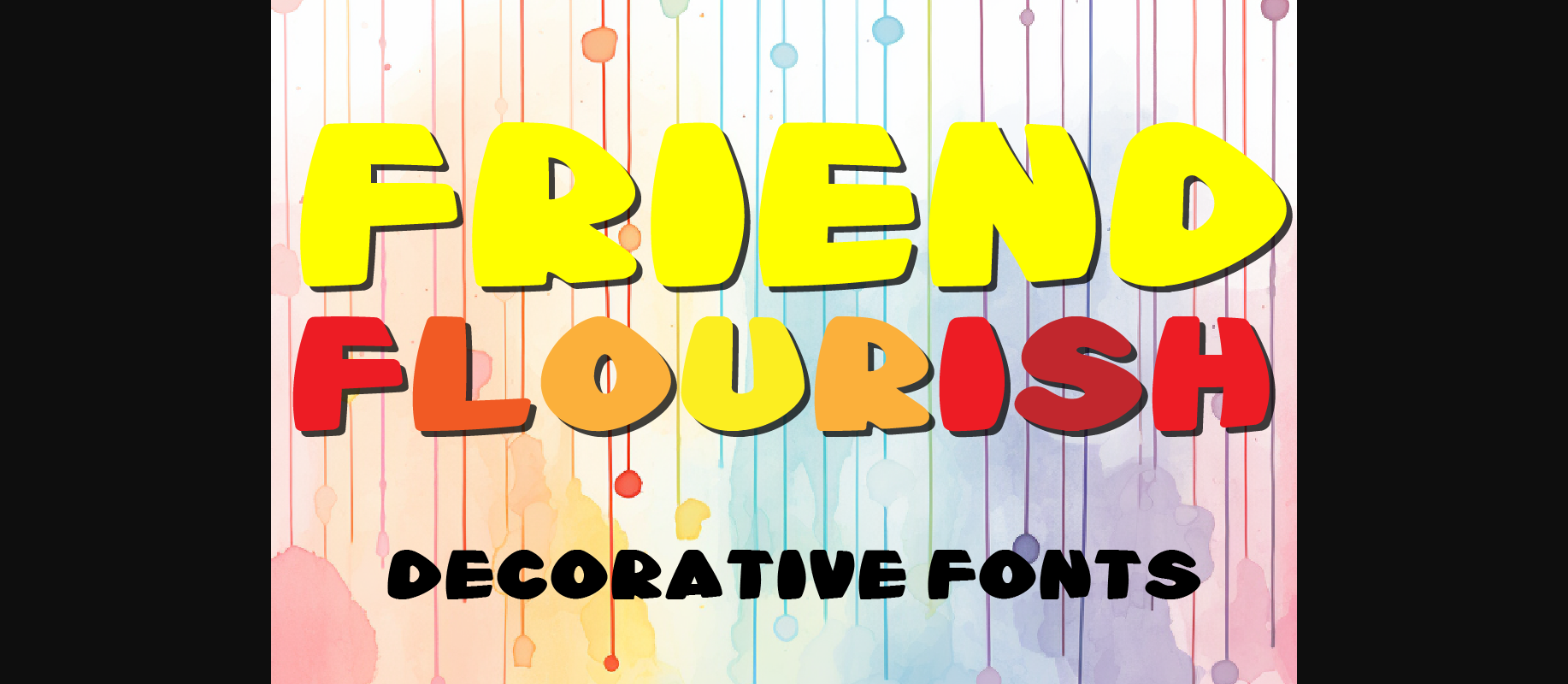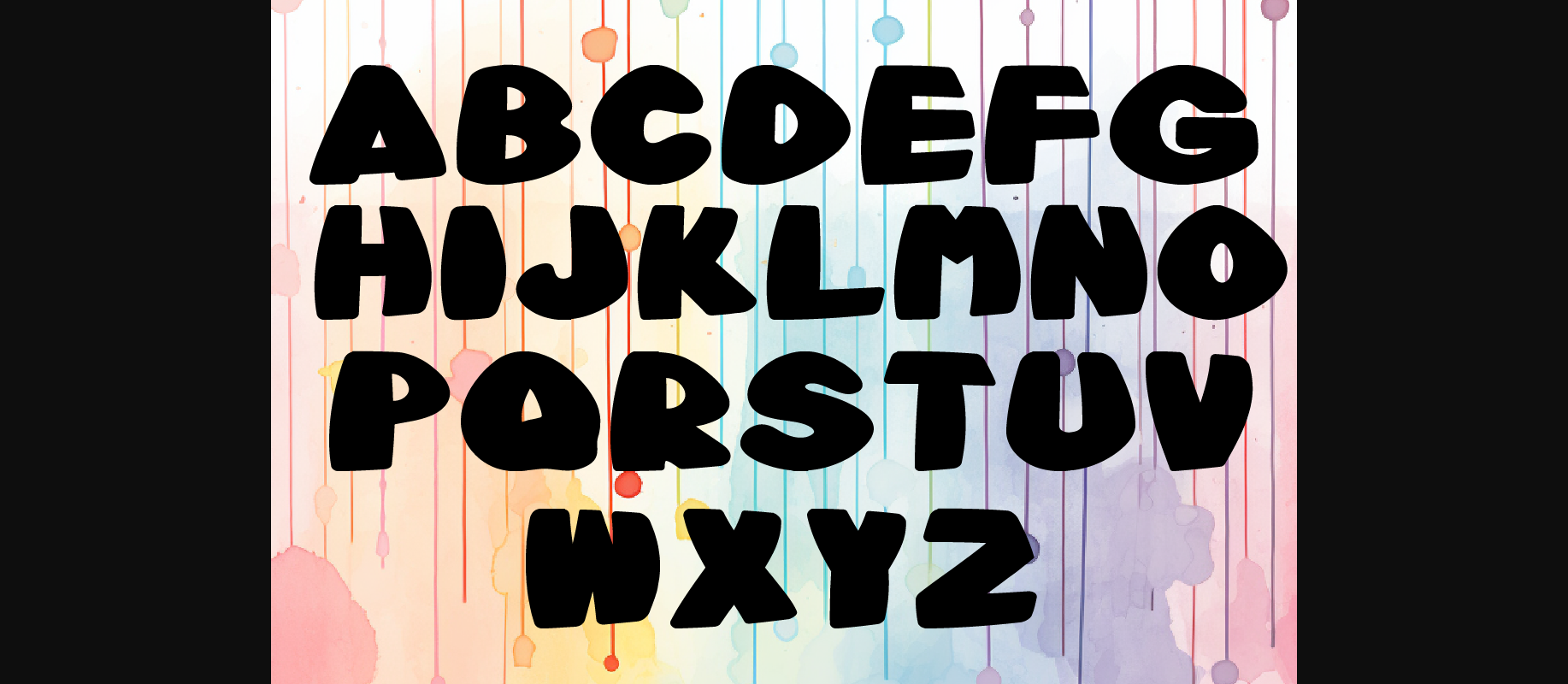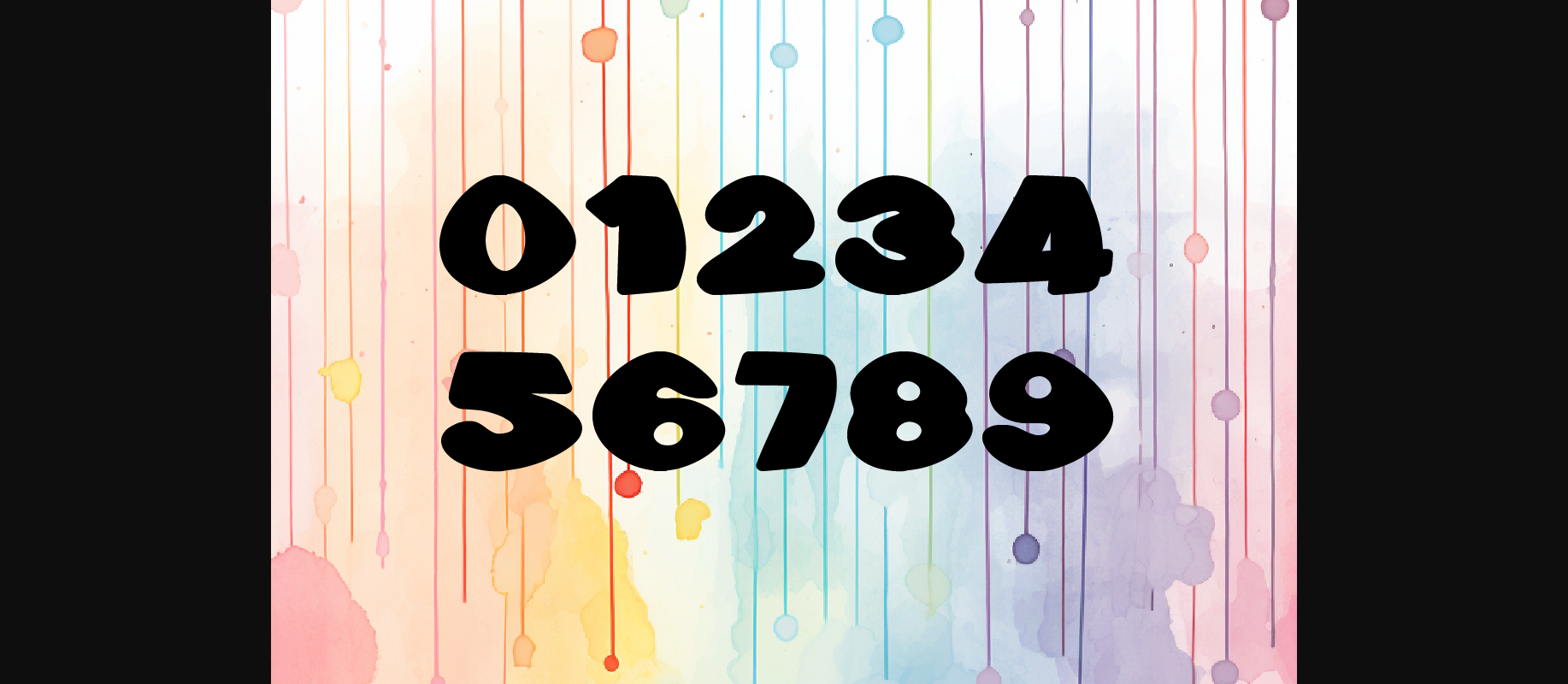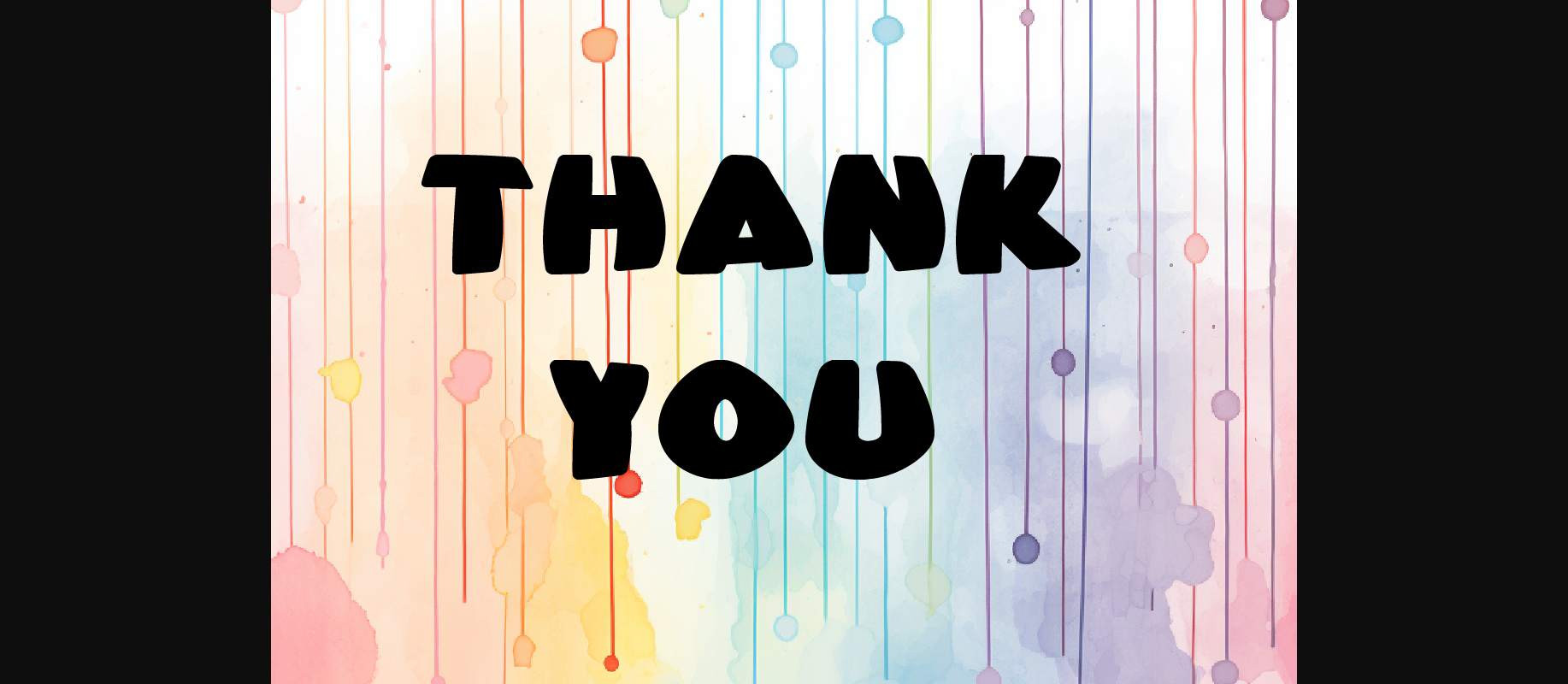
About Friendship Flourish Font
Introducing “Friendship Flourish” Decorative Fonts! With a total of 26 capital letters and 10 numbers 0-9, this font pack offers endless creative possibilities. Whether you’re designing invitations, crafting digital art, or enhancing your branding, these fonts can be seamlessly integrated into various applications. Each letter is meticulously crafted to exude elegance and style, adding a touch of sophistication to your projects. With the included OTF/TTF files, you’ll have easy access to these fonts across different platforms. Elevate your designs with “Friendship Flourish” and let your creativity flourish